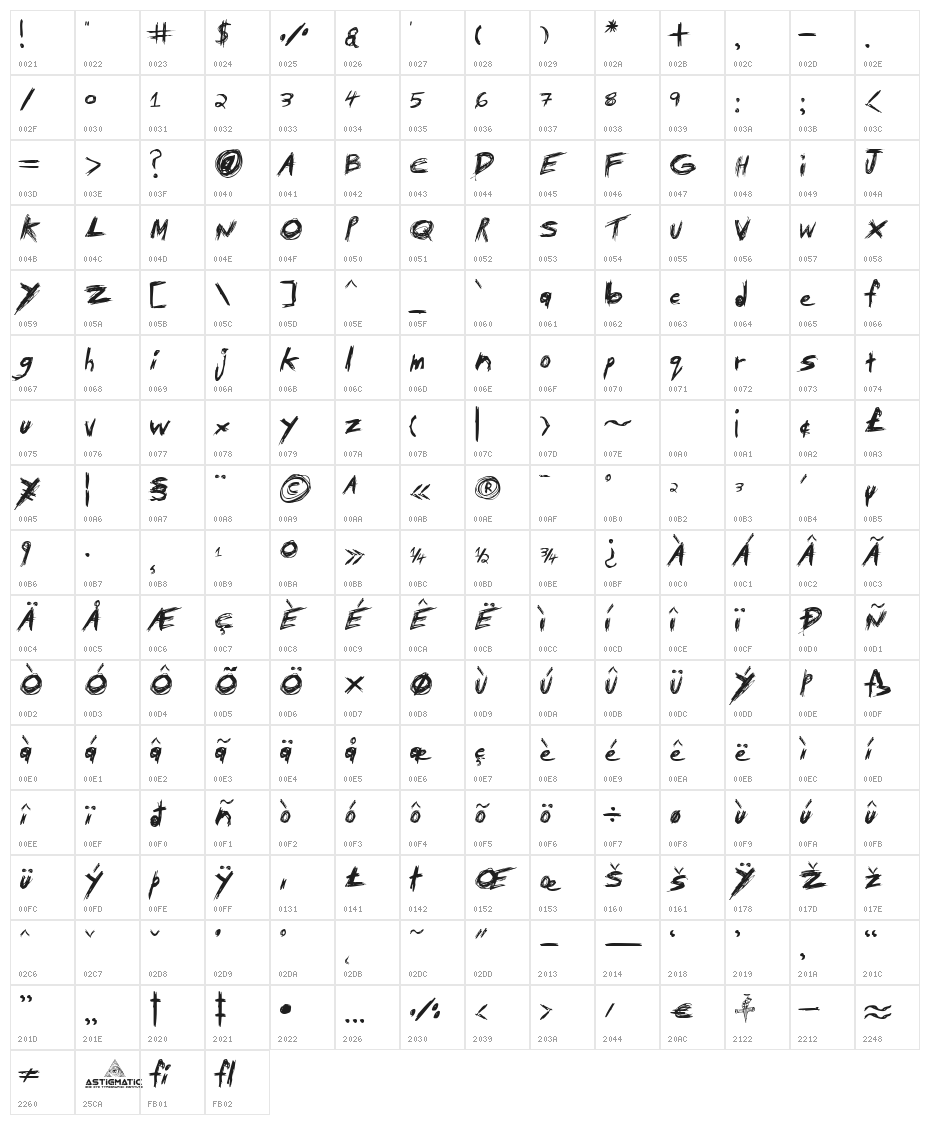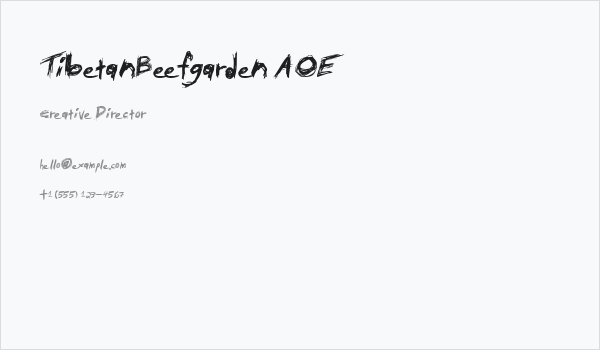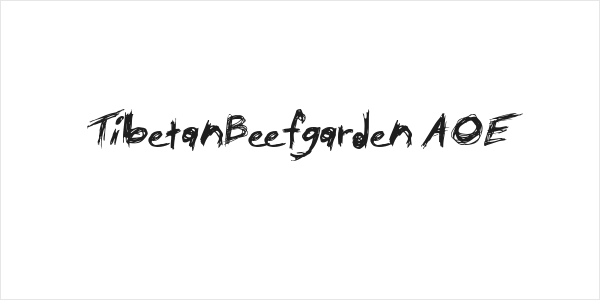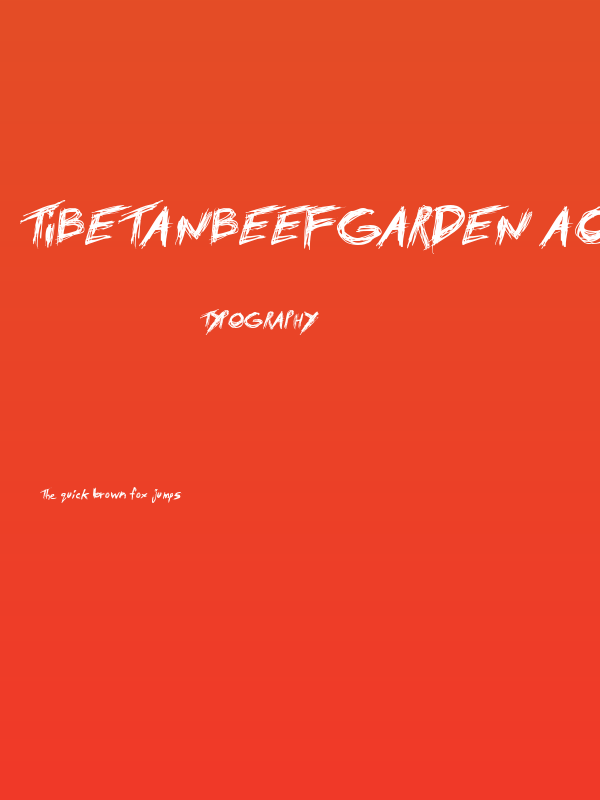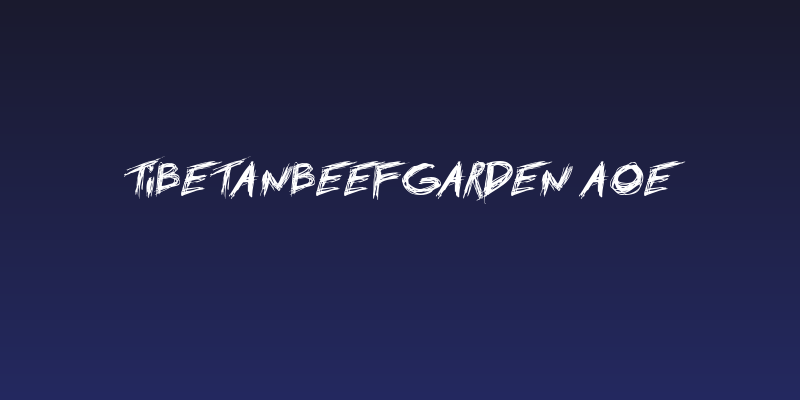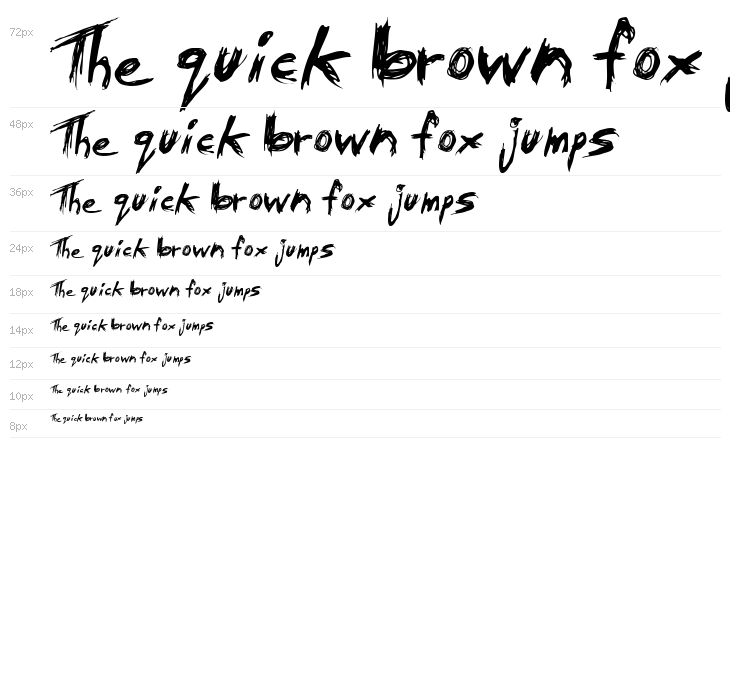
TibetanBeefgarden AOE Font
TibetanBeefgarden AOE Description
This font features a bold, expressive style with a hand-drawn appearance. The characters are irregular and dynamic, with strokes that vary in thickness, giving it a rough, edgy look. The uppercase and lowercase letters maintain a consistent style, with jagged edges and a sense of movement. Numbers and special characters follow the same aesthetic, making the font suitable for projects that require a dramatic and artistic touch. Its unique design makes it stand out, perfect for creative and unconventional applications.
| Proposed Projects | Ideal for album covers, posters, graffiti art, and any project needing a bold, artistic flair. |